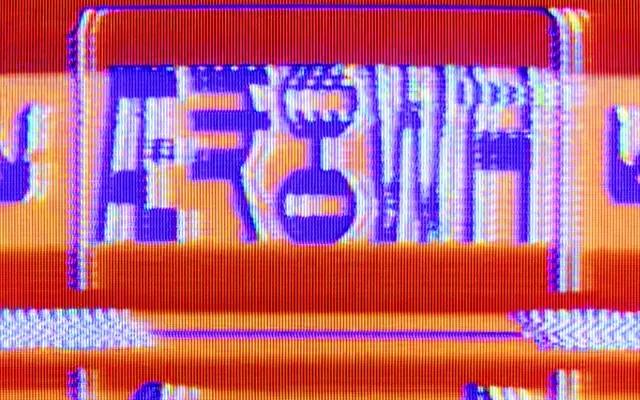
2049
Off Type · Mat Desjardins, Francesca Bolognini, Fred Wiltshire
A nine-weight angular display typeface built around deliberate glitch aesthetics, with warped strokes and fragmented forms framed as the output of an AI making errors.
Designed by Mat Desjardins, Francesca Bolognini and Fred Wiltshire, the family spans Thin to Black with a variable cut and 455 glyphs covering Latin Extended A. Each weight carries intentional distortions: strokes warp, lines twist and shapes fragment to suggest digital malfunction. The concept is built around the question of whether a machine or a human is ultimately responsible for the forms, giving it a narrative hook useful for sci-fi, tech and editorial contexts.
An angular, glitch-inflected display sans with distorted strokes and fragmented forms; the deliberate digital-anomaly aesthetic places it firmly in the experimental display category rather than any conventional sans classification.